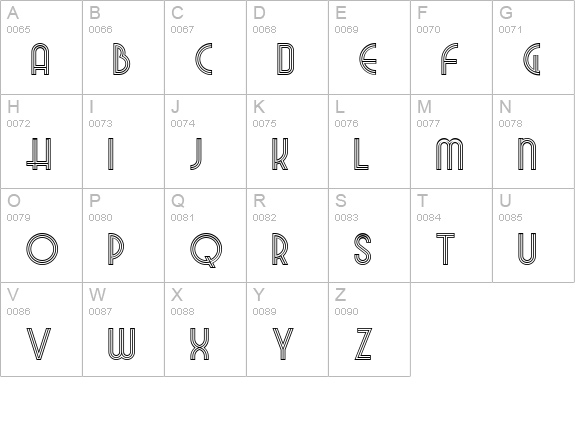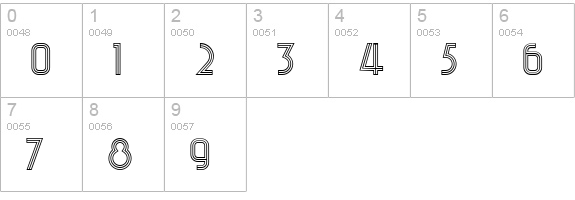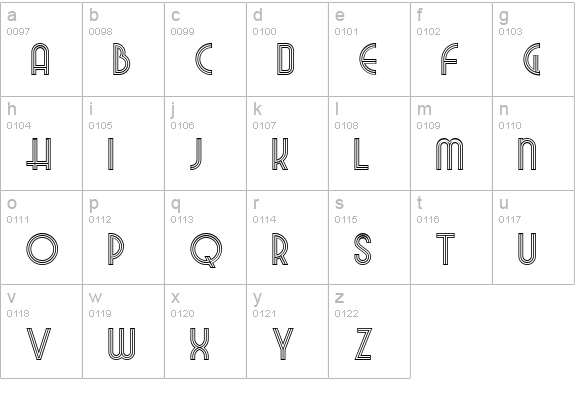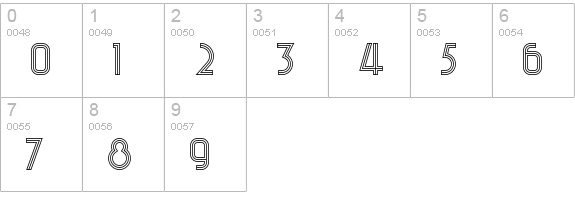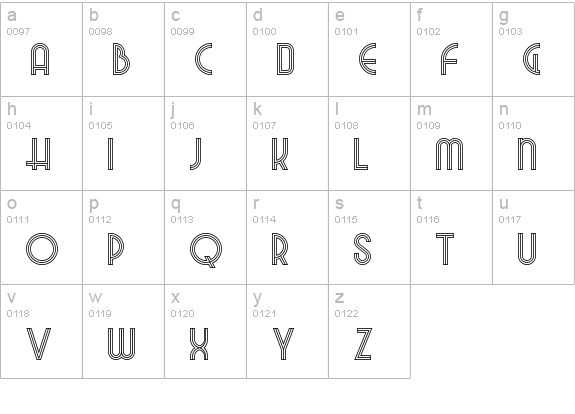
Night At The Opera NF Font Details
Night At The Opera NF is a stunning and elegant font that exudes sophistication and charm. With its intricate details and ornate design, this font is perfect for adding a touch of luxury to any project. The flowing lines and graceful curves of Night At The Opera NF create a sense of drama and grandeur, making it ideal for creating eye-catching headlines or elegant invitations. This font is not only visually striking but also highly versatile, suitable for a wide range of design purposes. Whether you're working on a wedding invitation, a branding project, or a poster design, Night At The Opera NF will add a touch of class and sophistication to your work. The best part is, Night At The Opera NF is completely free to download at FontsMarket.com. So you can add this beautiful font to your collection without breaking the bank. Don't miss out on the opportunity to elevate your designs with the timeless elegance of Night At The Opera NF. Download it today and start creating stunning visuals that will leave a lasting impression.